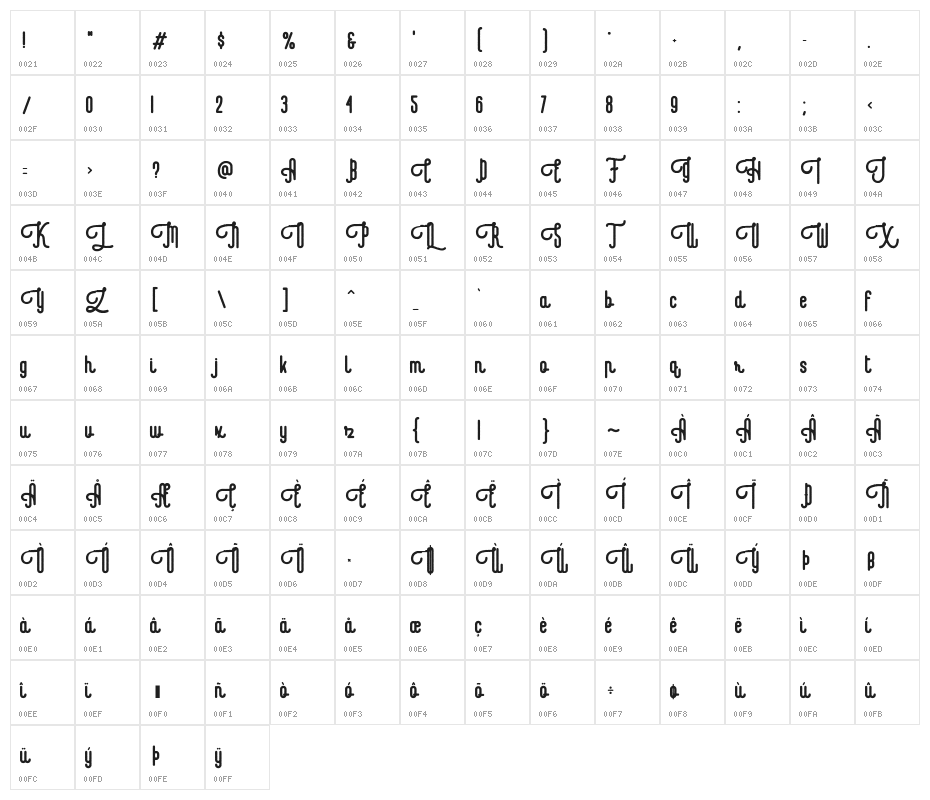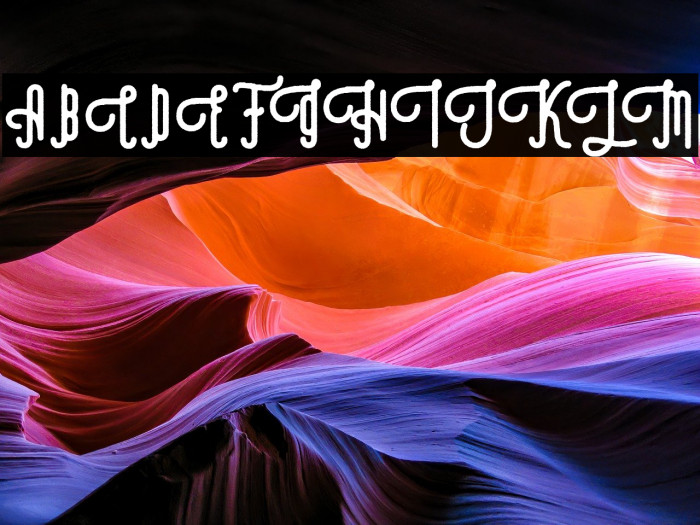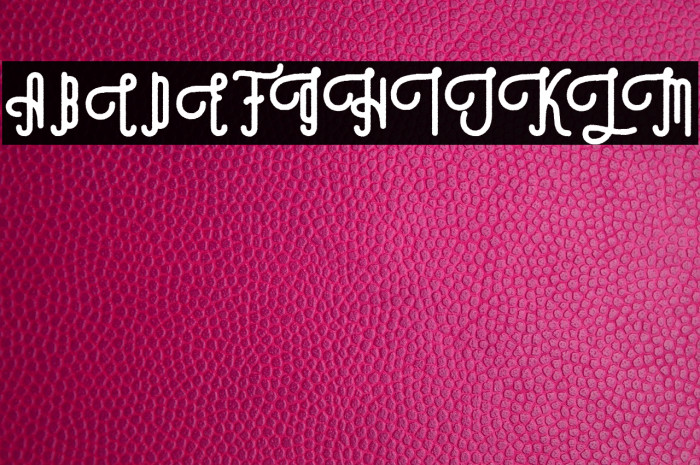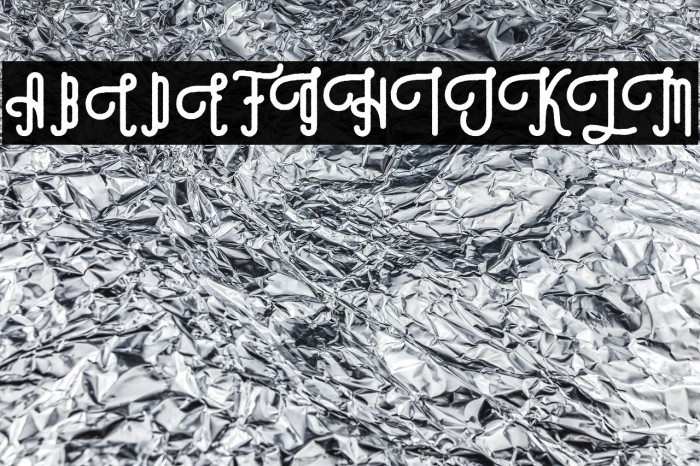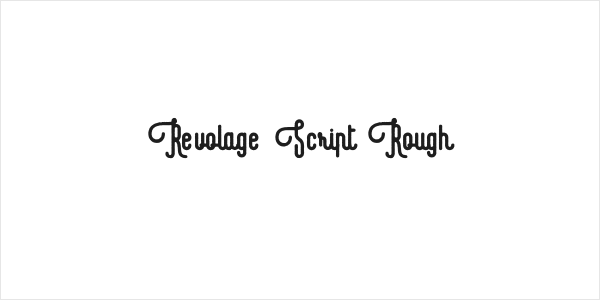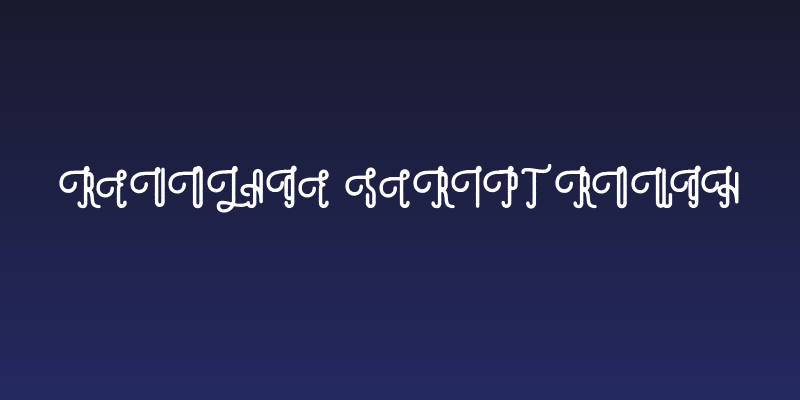
Revolage Script Rough Font
Revolage Script Rough Description
This font features a playful and artistic script style with a rough texture that gives it a hand-drawn appearance. The uppercase letters are characterized by their unique loops and curves, creating a whimsical and decorative look. The lowercase letters maintain a consistent flow, enhancing the script's fluidity. Numbers and special characters are designed to match the overall style, adding to its cohesive appearance. The rough texture adds an organic feel, making it suitable for projects that require a personal touch.
| Use Case | Logos, Headlines, Artistic projects |
| Proposed Projects | Ideal for greeting cards, invitations, branding projects, and artistic posters. |